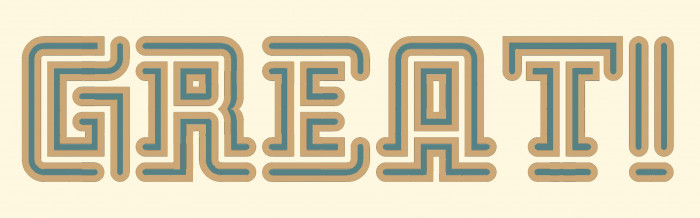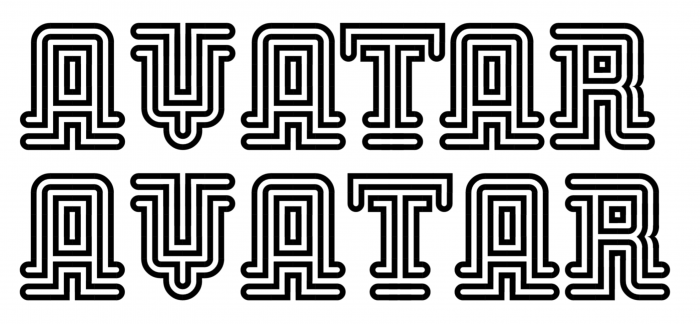
This looks pretty nice. I wonder if a filled version is possible to do?
Thanks @Bryndan W. Meyerholt! It was made using connect bricks, so a filled version is definitely possible.
Thanks for the sample @Elmoyenique. I spend some time kerning to make the lower case glyphs lock together, but I'll do some work on the Upper case (see AT above) as well...
I know that, kern is often a very personal choice, dear compañero... But most popular design programs have built-in ways to modify the space between letters. Don't worry if you're not planning to publish the font professionally.
So Fun Font 😅😅😱😱